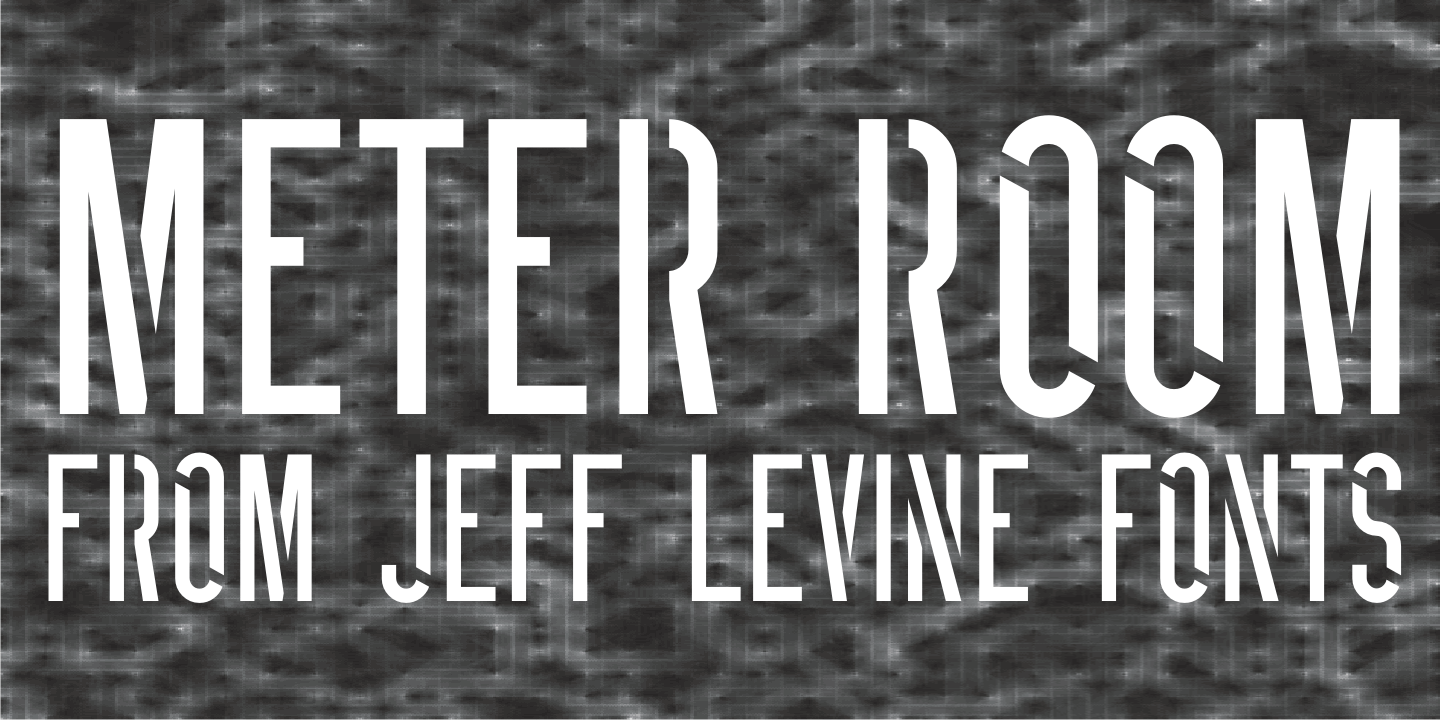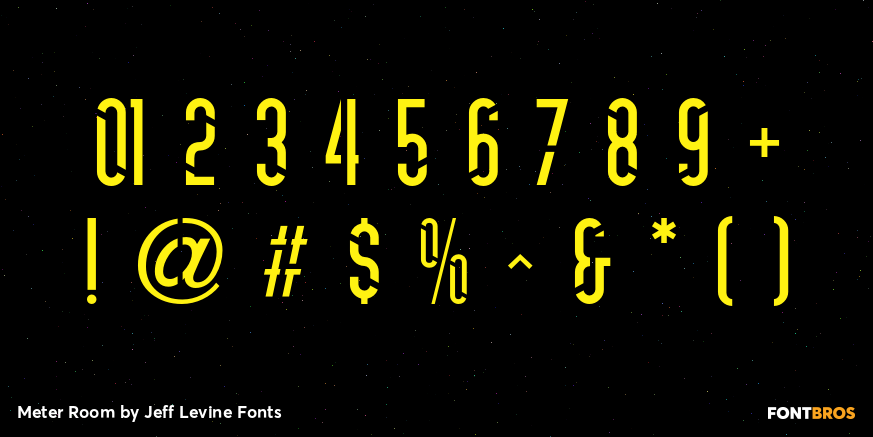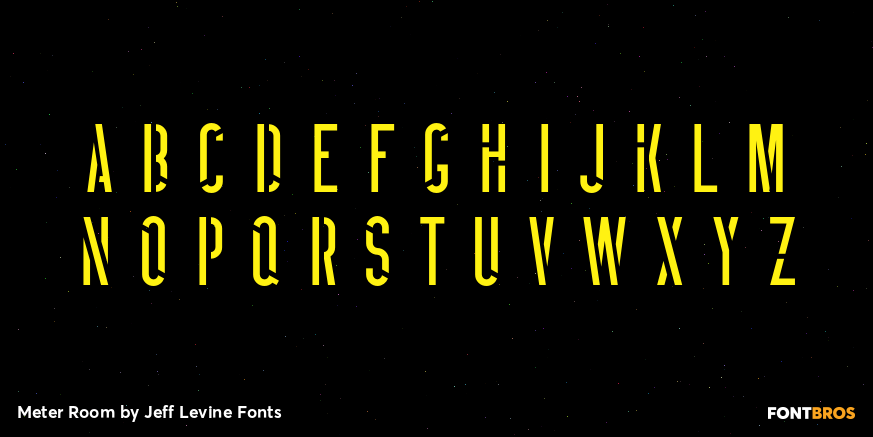
Meter Room
The design idea for Meter Room JNL comes from a vintage brass hand-cut stencil of the words "High Voltage".
What makes this stencil font a bit different than others is the placement and angle of some of the "breaks" within the letters.